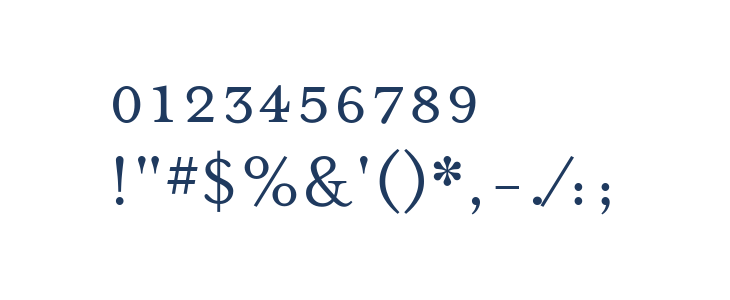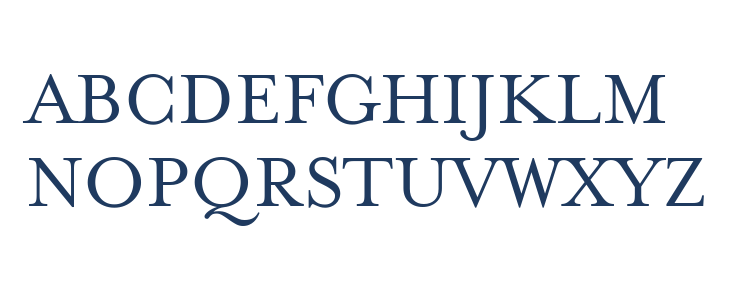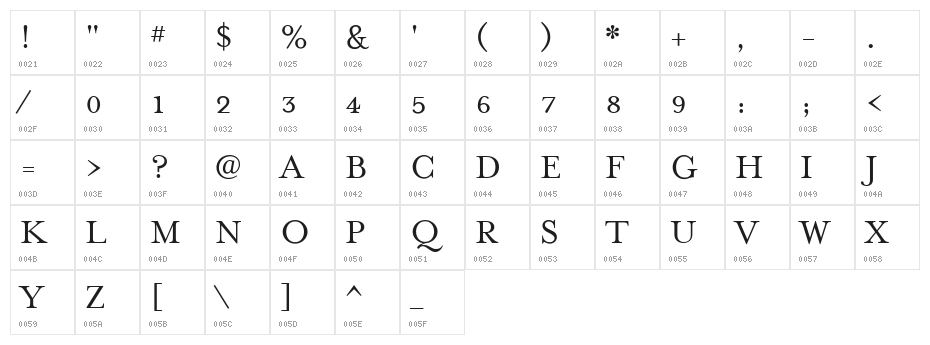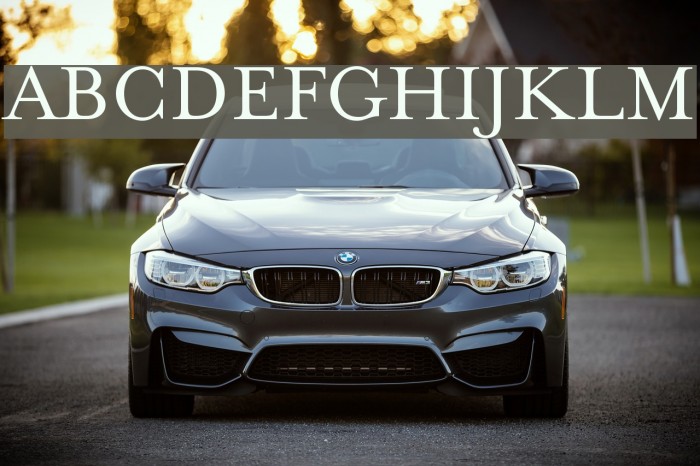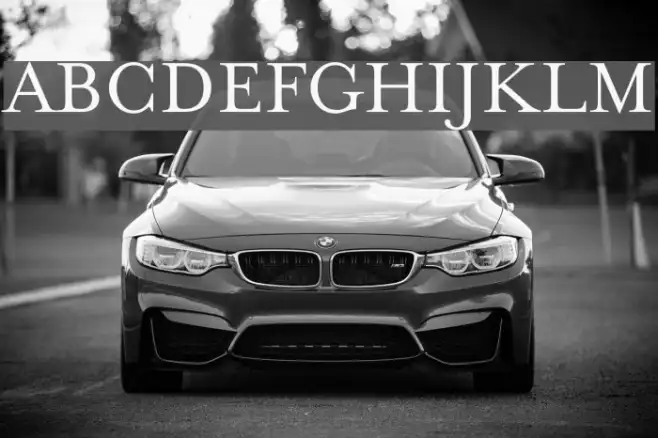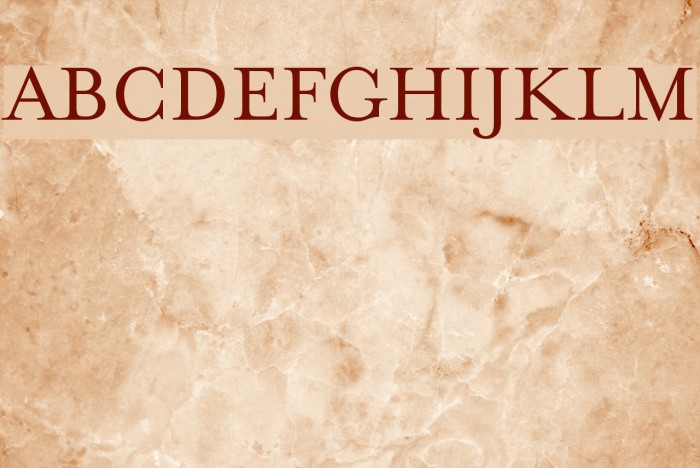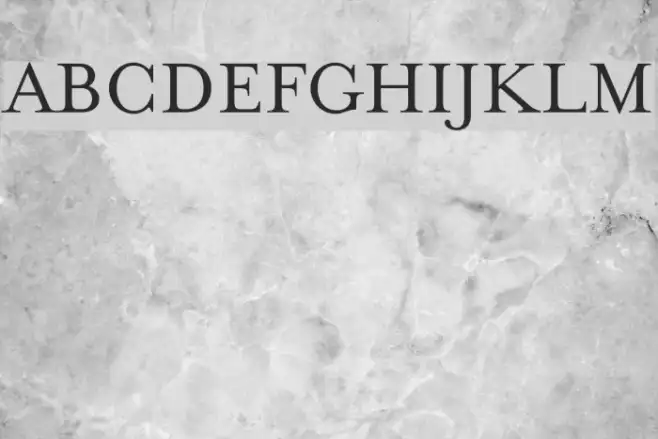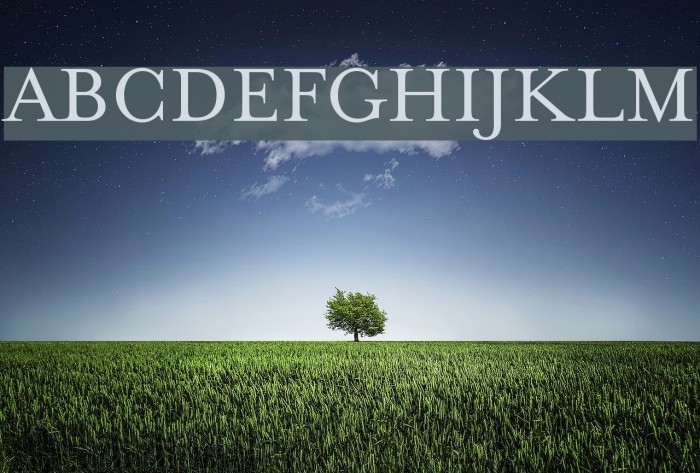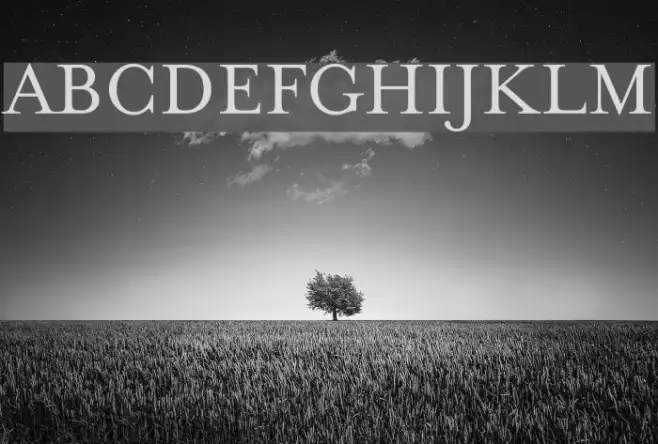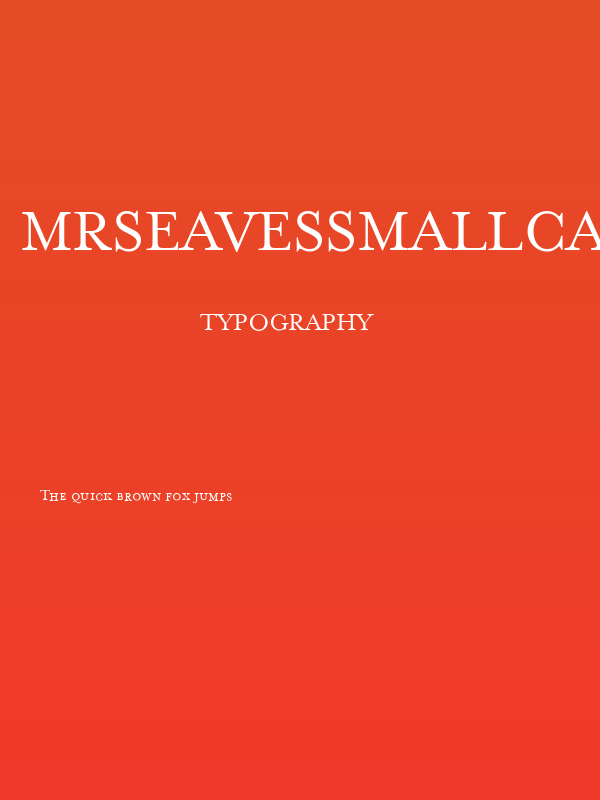
This font exudes a classic elegance with its refined serif design, characterized by its balanced proportions and subtle contrast in stroke thickness. The uppercase letters are distinguished by their traditional forms, while the lowercase letters maintain a consistent style that complements the overall aesthetic. The numerals are clear and legible, making them suitable for various applications. Special characters are thoughtfully designed, adding to the font's versatility. The spacing between characters is well-considered, offering a harmonious flow in text.
Overall StyleClassic
Use CaseHeadlines, Body text, Logos
Proposed ProjectsIdeal for book typesetting, formal invitations, and branding projects requiring a touch of sophistication.